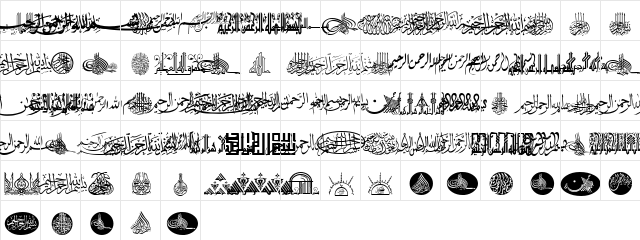
>X BiSmeLLaH {Megaoft} Regular
Foundry: Mega￿oft (R) Muhammad Naveed Khan,
Designer: Naveed Khan
Design Context for >X BiSmeLLaH {Megaoft}
>X BiSmeLLaH {Megaoft} is a composed and adaptable typeface that performs quietly and consistently across a wide range of design contexts.
Who designed the >X BiSmeLLaH {Megaoft} Regular font?